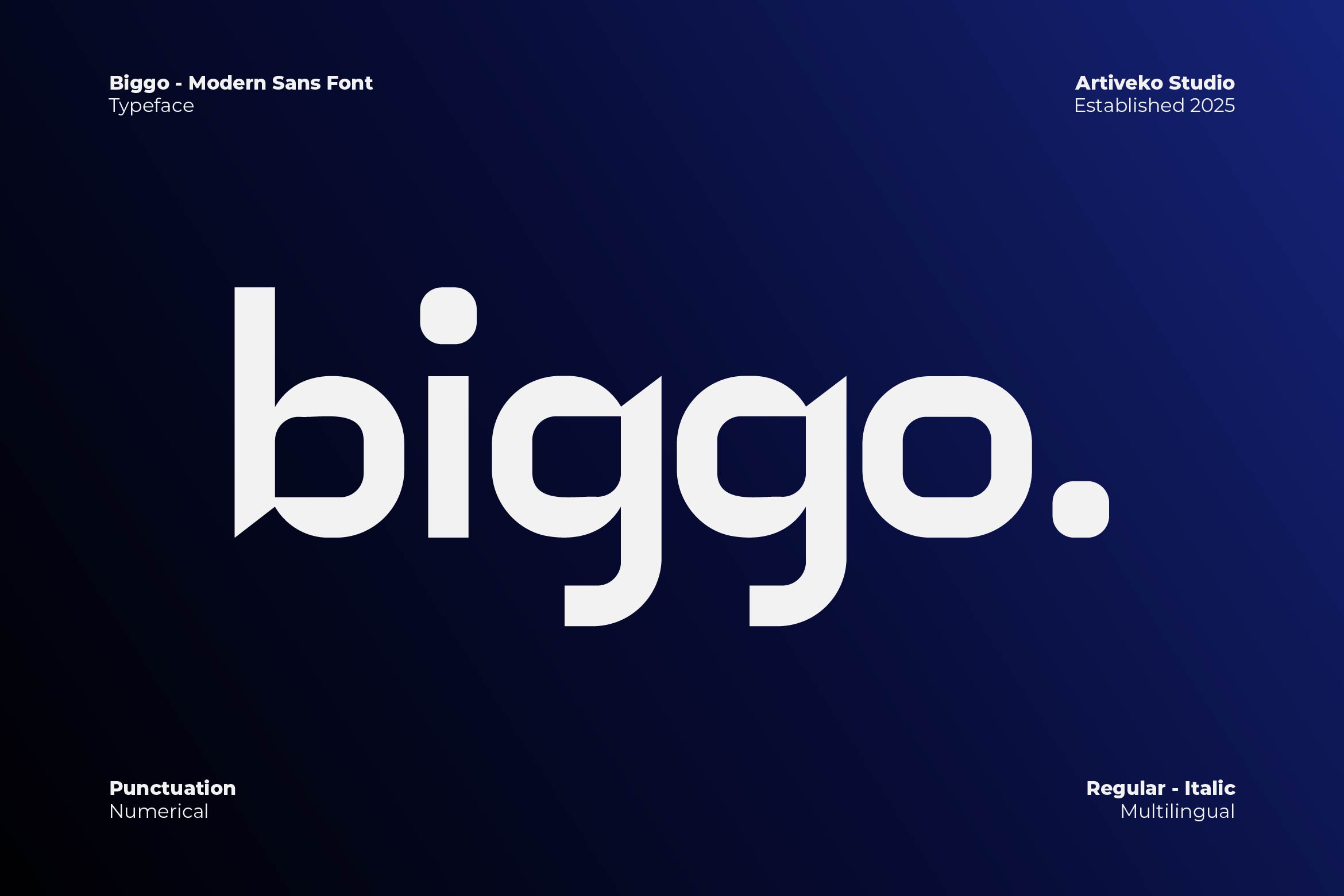
- Biggo Sophisticated Sans Font
Biggo is a strong and confident sans serif font designed to make a statement. With bold proportions, clean lines, and a geometric feel, Biggo is perfect for headlines, branding, posters, editorial layouts, logo design, and impactful marketing visuals.
Its powerful letterforms give your text a commanding presence while maintaining excellent readability. Biggo’s modern style suits a variety of design themes — from tech and fashion to sports and creative projects — delivering a versatile, polished look across both print and digital media.
This font includes uppercase and lowercase letters, numerals, punctuation, multilingual support, and stylistic alternates for added design flexibility.
Make your message loud and clear with Biggo — the sans serif font that blends bold strength with modern design precision.